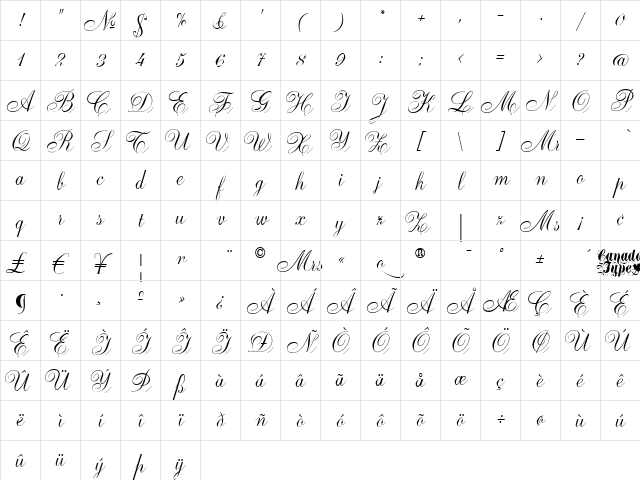
Ambassador Script Alt Caps Regular Free Font
Ambassador Script Alt Caps Regular
Foundry: Canada Type
Designer: Rebecca Alaccari
Complete Ambassador Script Alt Caps Regular glyph index. Displaying only characters natively supported by Ambassador Script Alt Caps Regular font.
Design Context for Ambassador Script Alt Caps
Ambassador Script Alt Caps flows with the natural rhythm of handwritten lettering, making it ideal for designs that call for warmth and personal expression.
Font Pairing: Combine Ambassador Script Alt Caps with a simple geometric sans for maximum contrast - the tension between flowing curves and clean structure is a classic typographic pairing.
Pro Tip: Use Ambassador Script Alt Caps for short runs of text - names, titles, or taglines. Extended body copy in script faces tires the eye quickly.